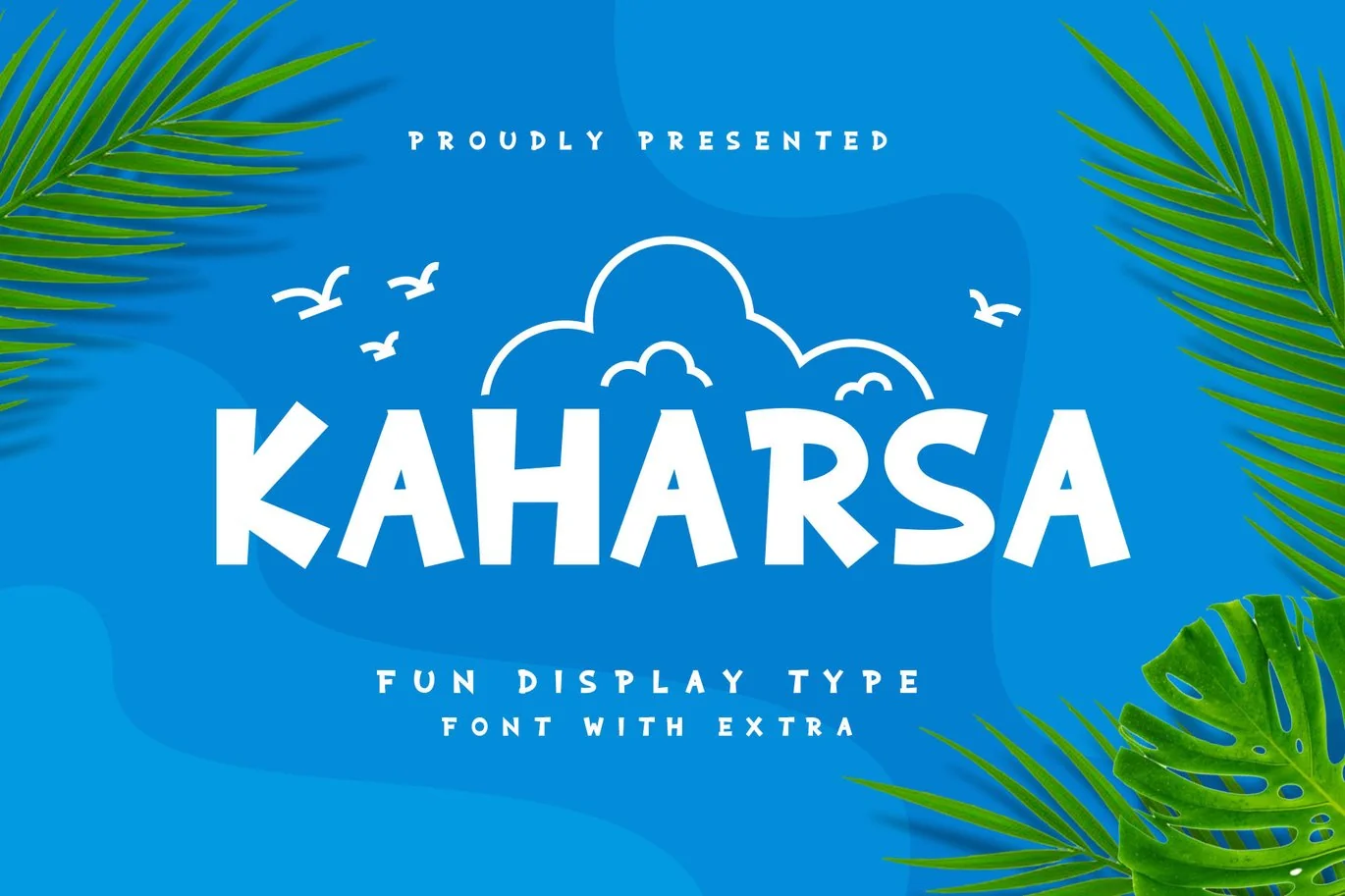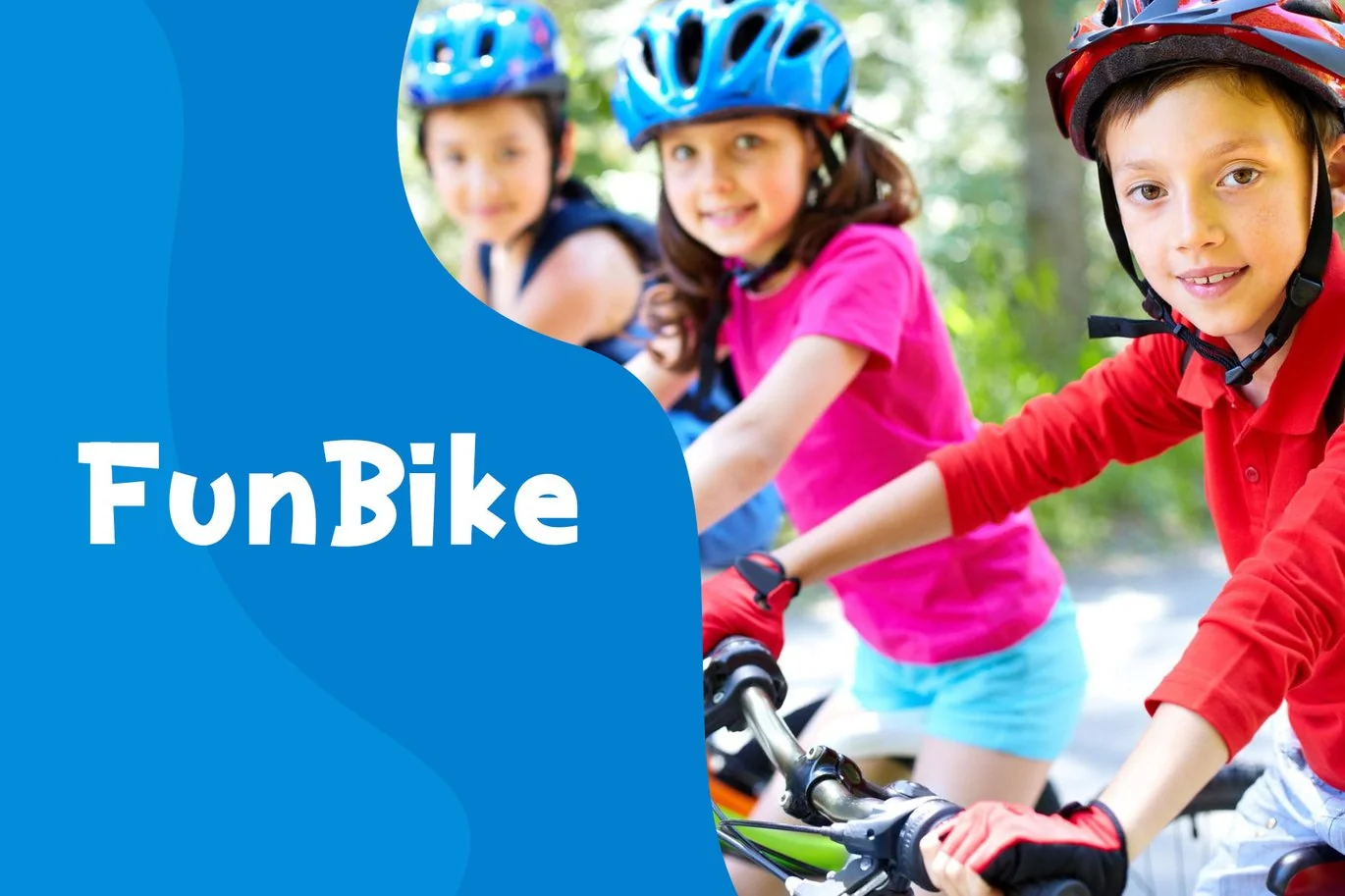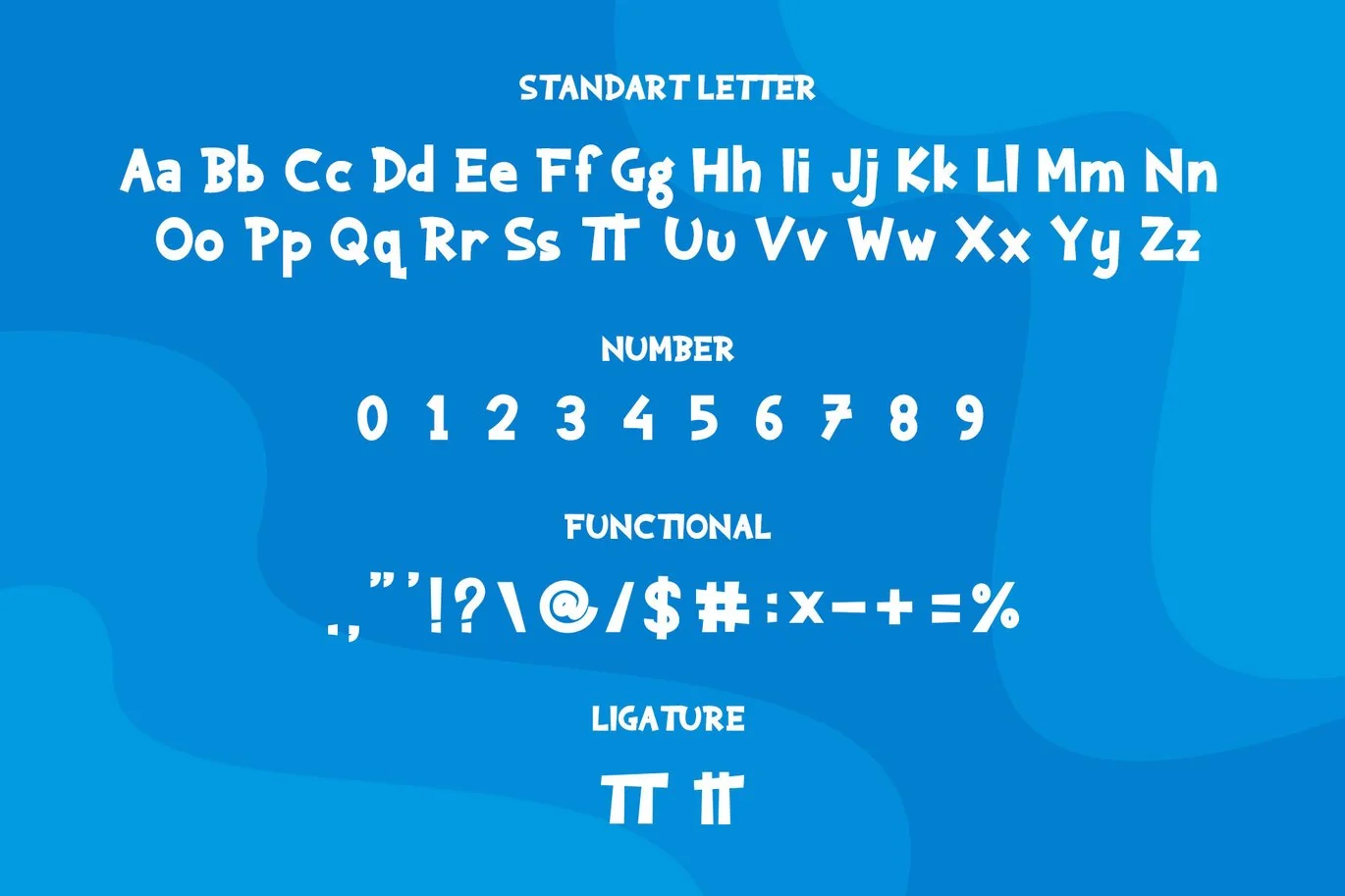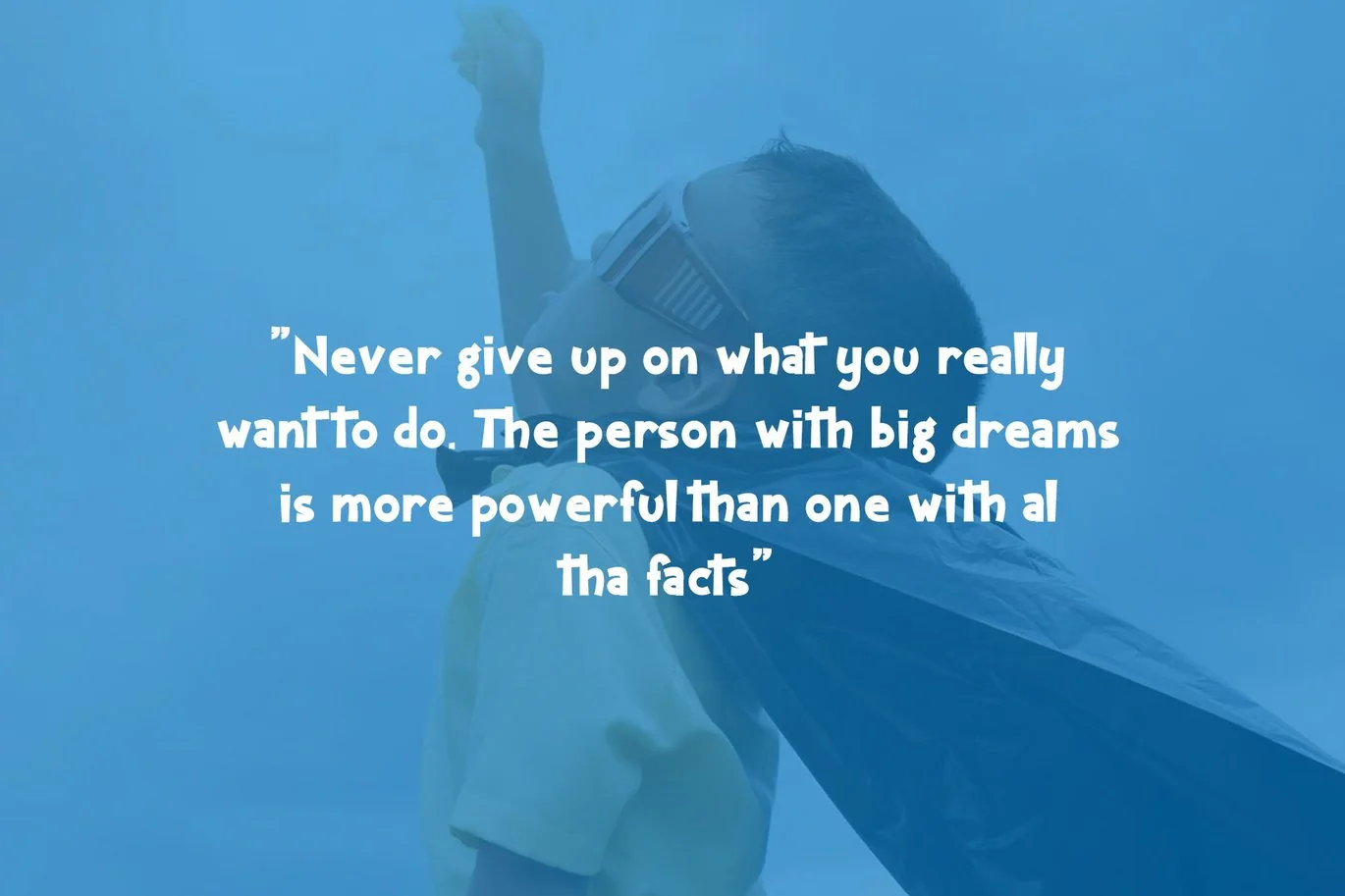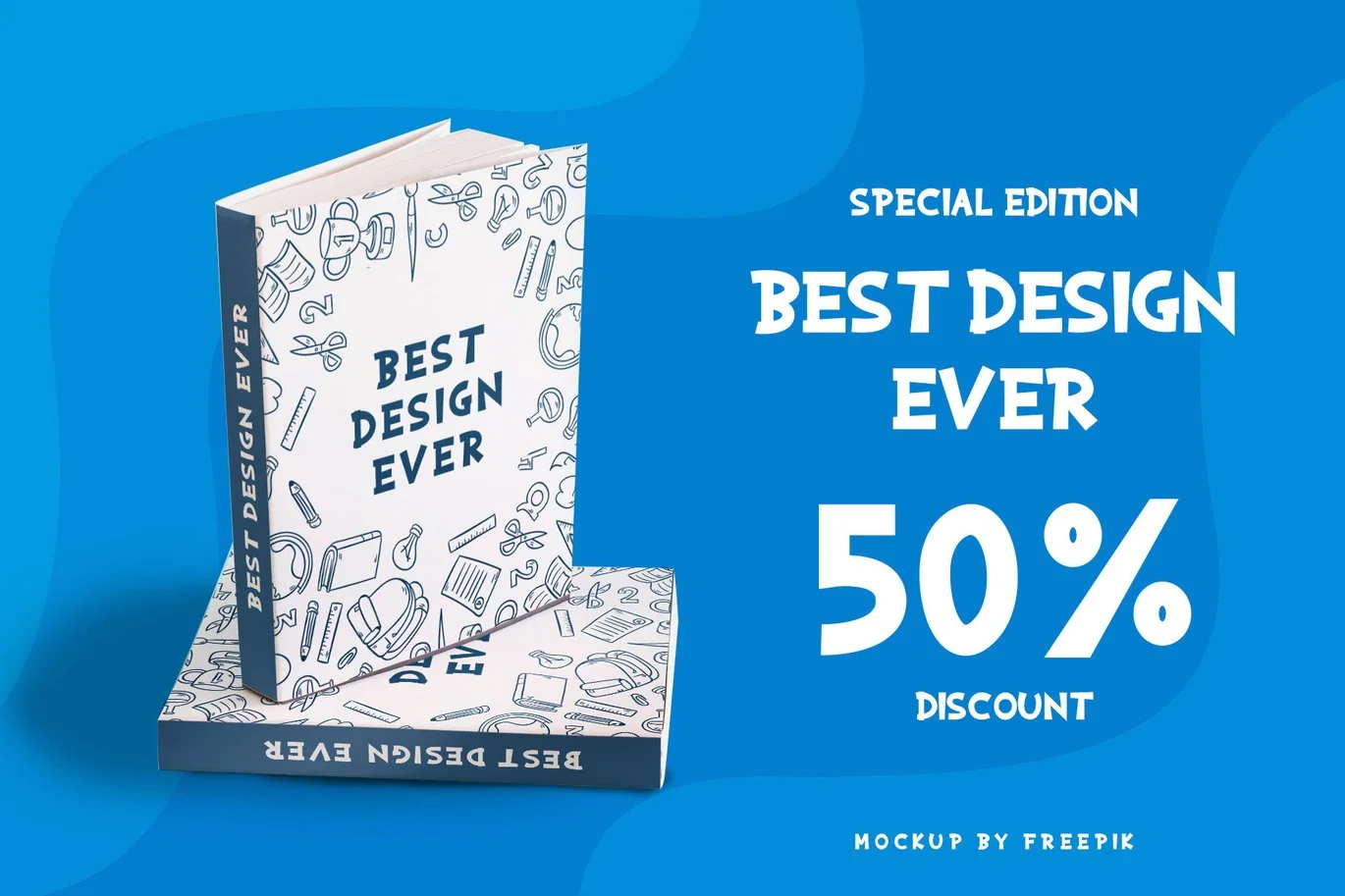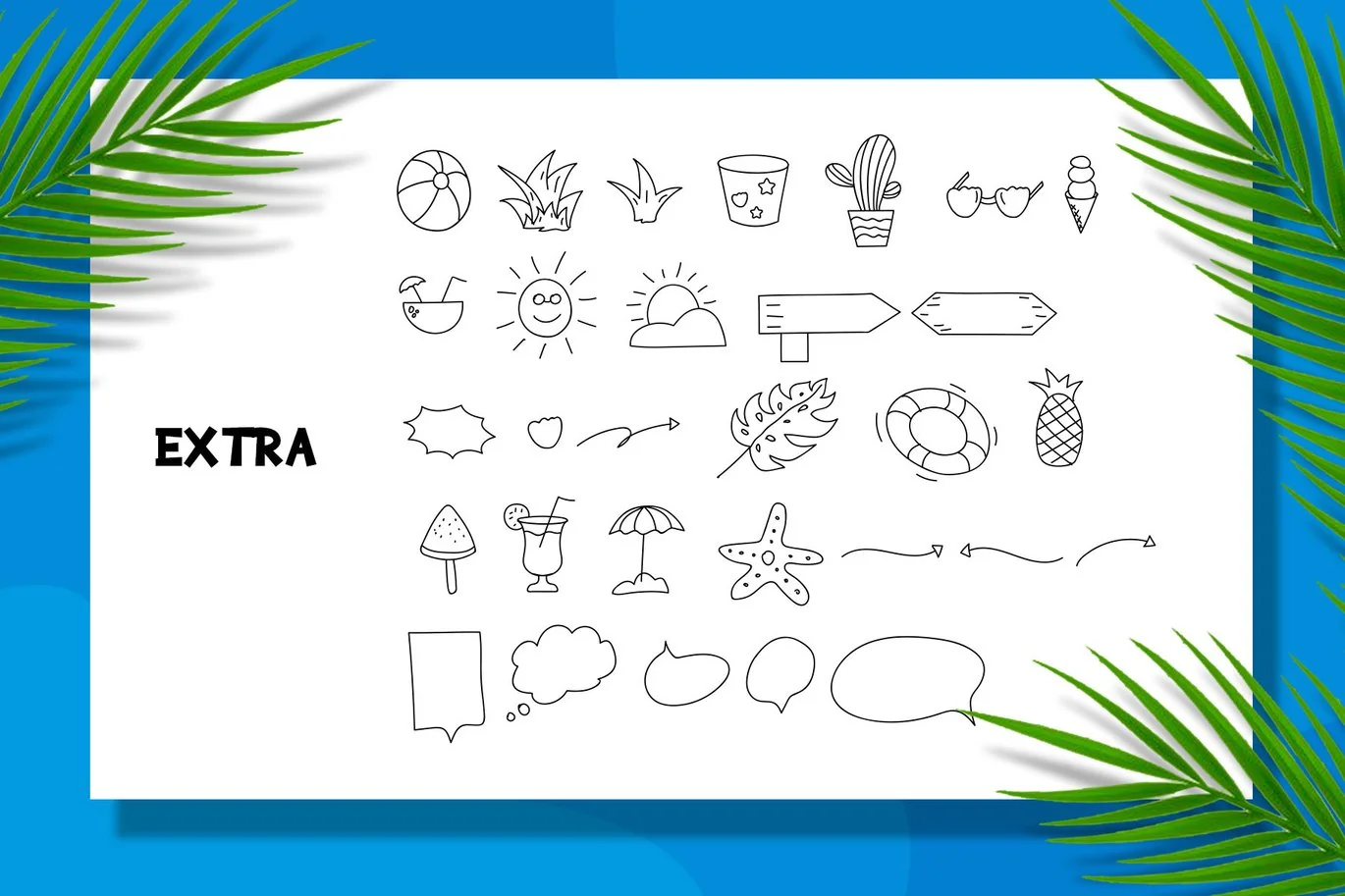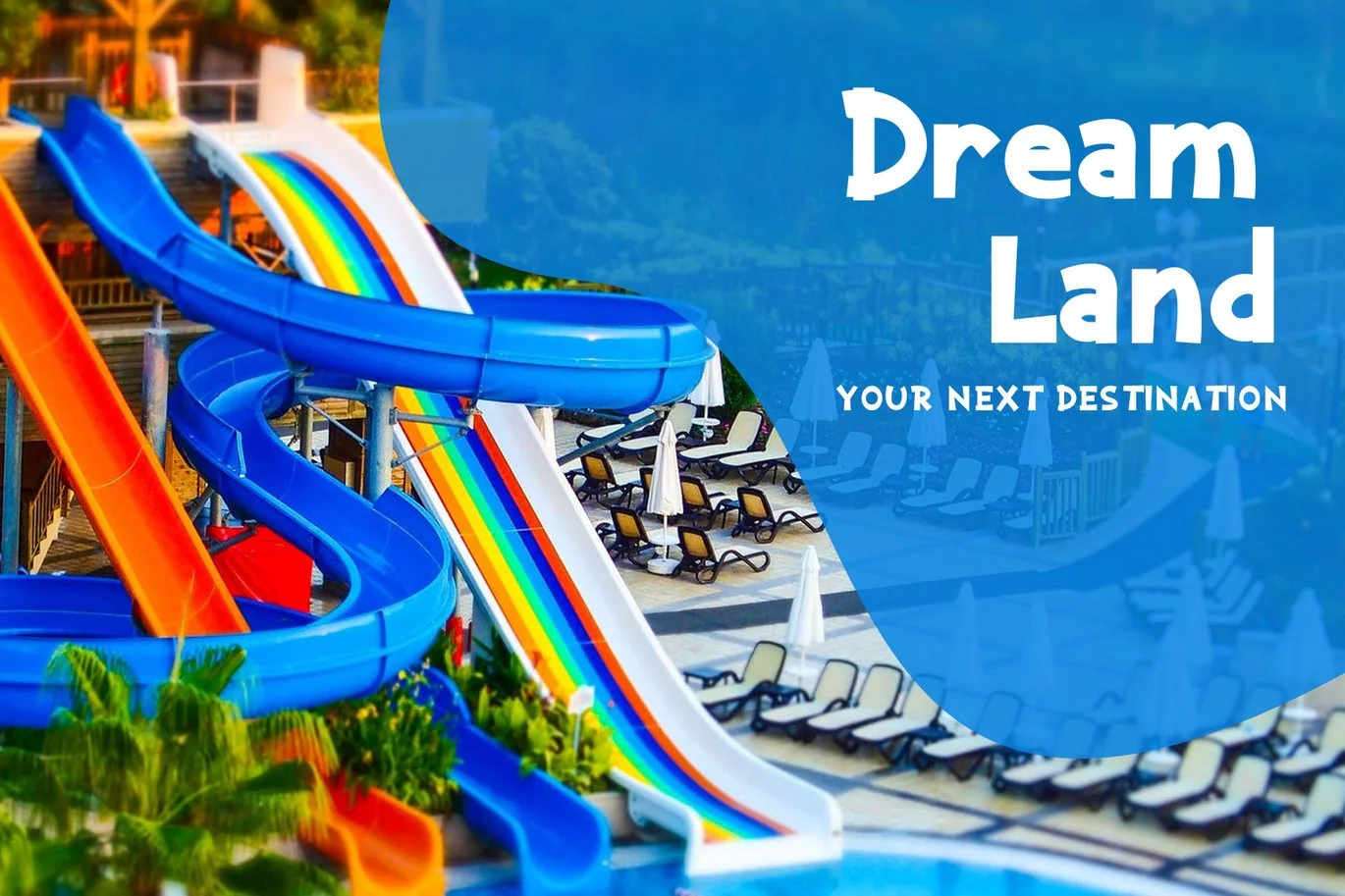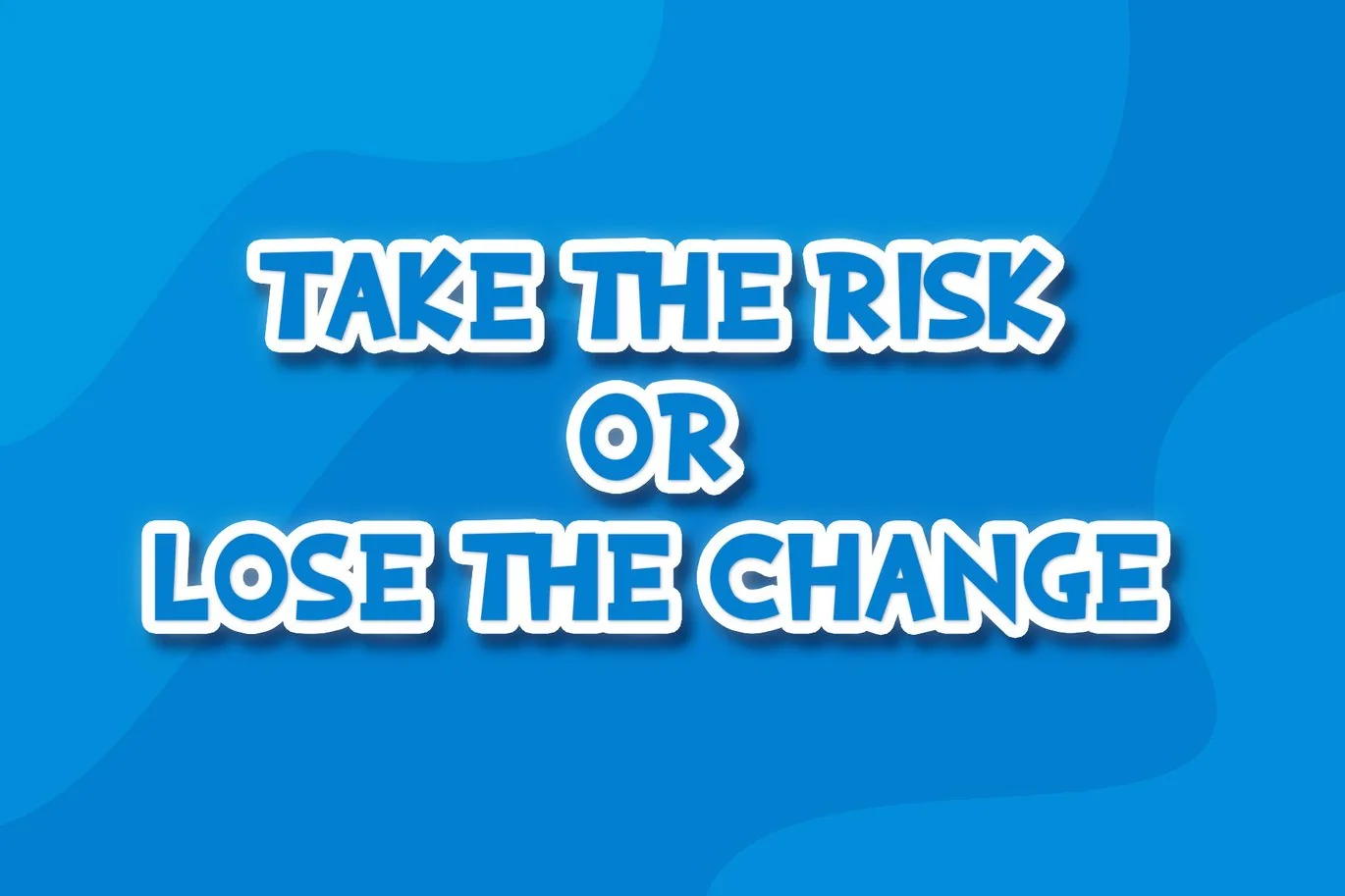
Kaharsa Fun Display Font
Introducing
I am a fun display font. my name is Kaharsa, KAHARSA is taken from the Sangsekerta language which means happines. I am child-friendly font, i would look perfect on creating designs targeted towards children and I am also suitable for logos, packaging designs, posters, books, etc.
- Standart Letter A-Z and a-z